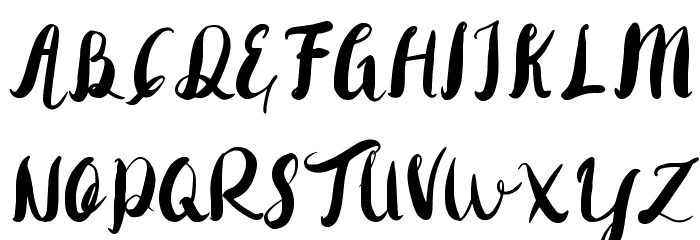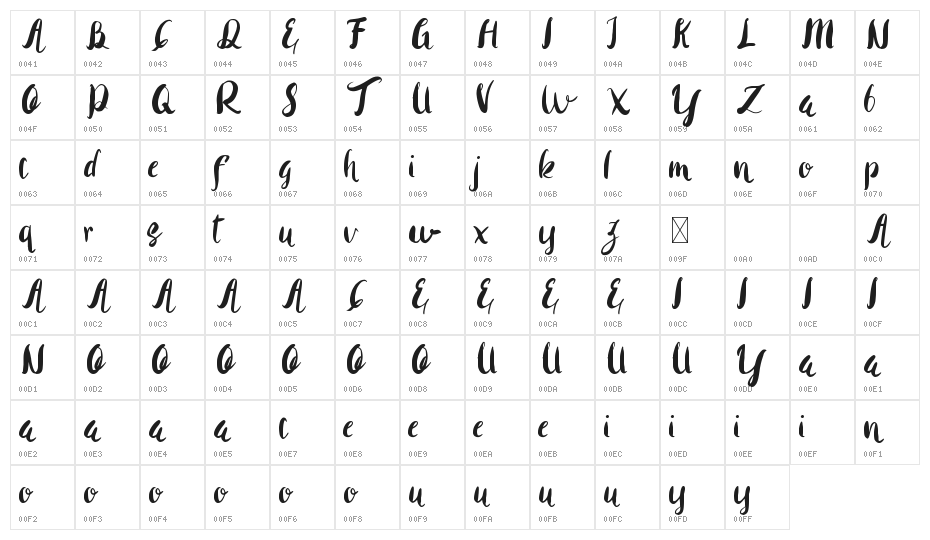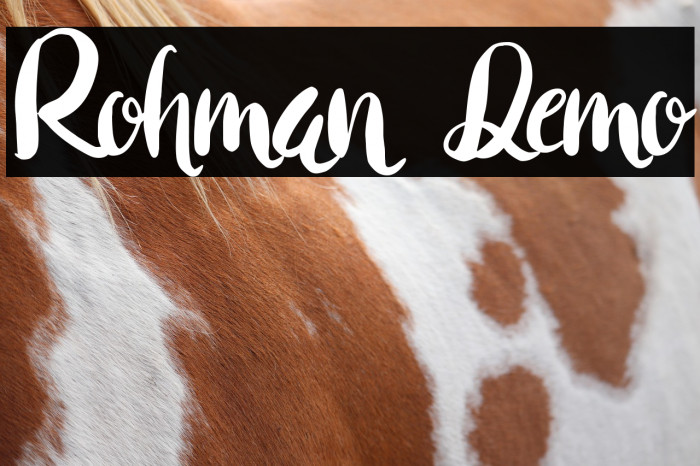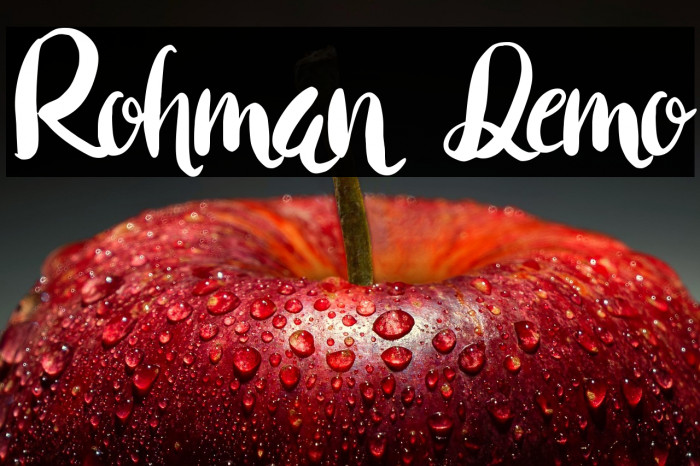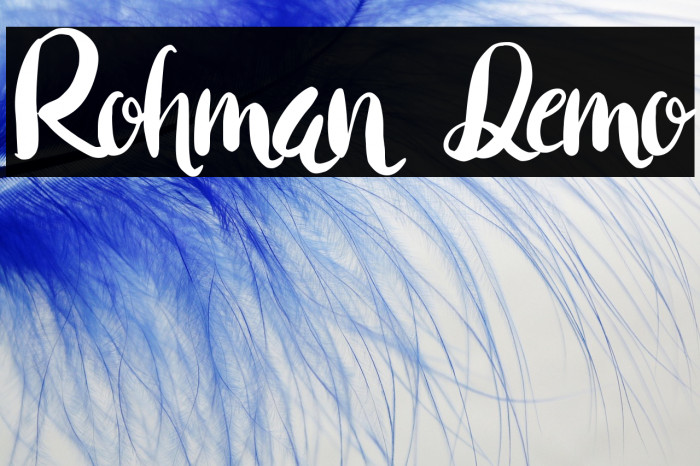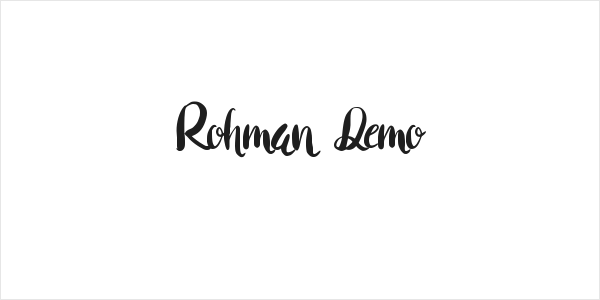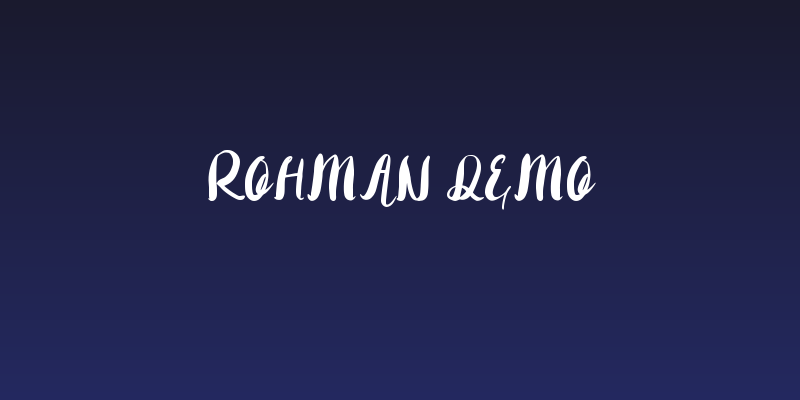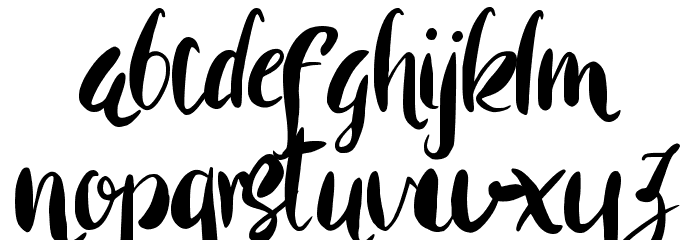
Rohman Demo Font
Rohman Demo Description
This font features a bold, expressive script style with a dynamic and flowing appearance. The characters are crafted with a brush-like quality, giving them a hand-drawn feel. The uppercase letters are tall and slightly condensed, while the lowercase letters maintain a consistent rhythm with elegant curves and loops. The font exudes a sense of creativity and energy, making it suitable for artistic and decorative purposes. The overall design is both playful and sophisticated, capturing attention with its unique character shapes and fluid strokes.